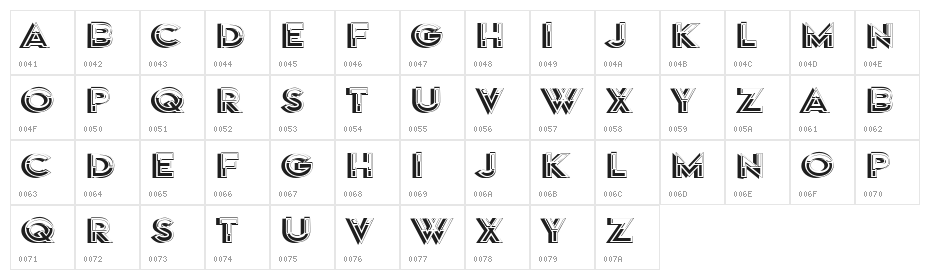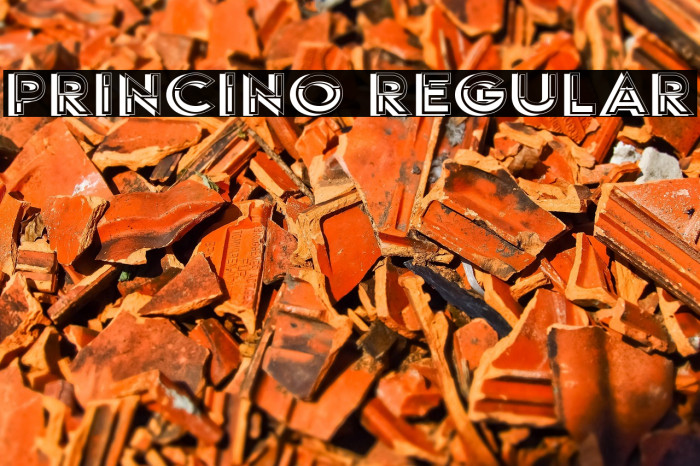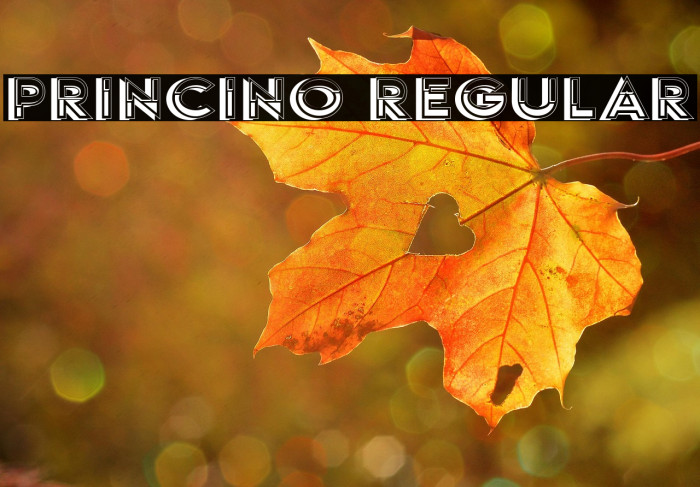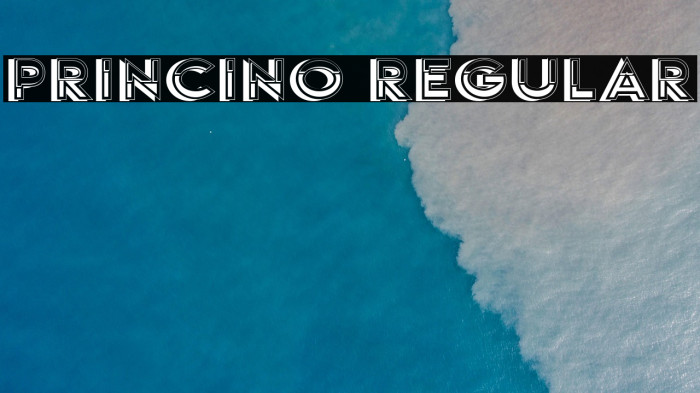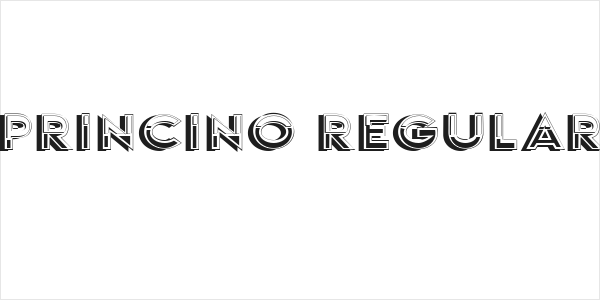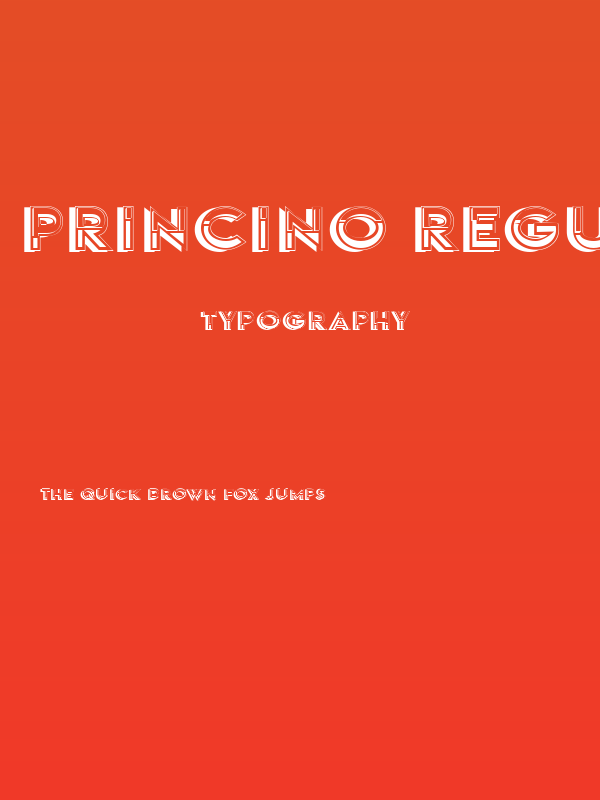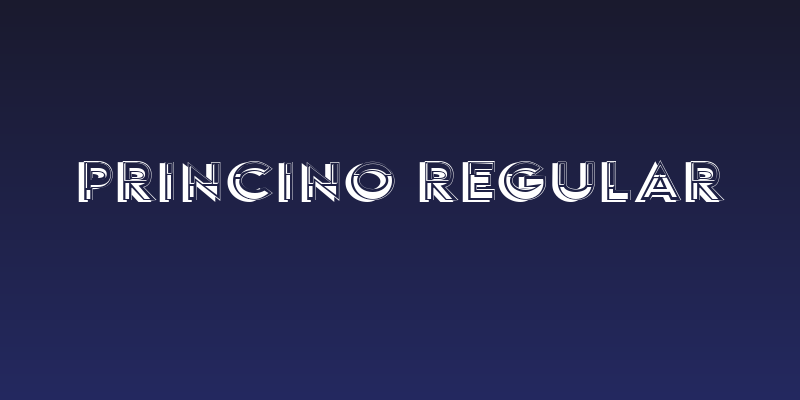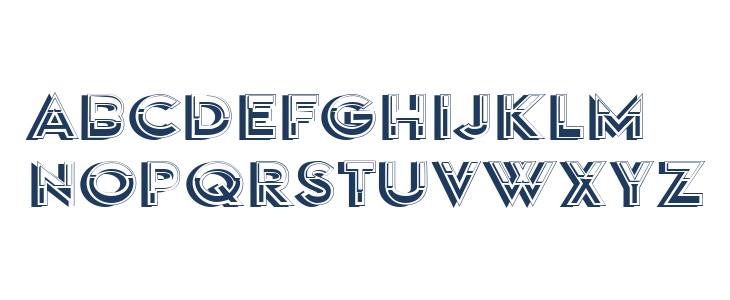
Princino Regular Font
Princino Regular Description
This font features a bold and striking design with a three-dimensional effect, achieved through the use of layered outlines and shadows. The uppercase letters are crafted with sharp, angular lines that give a sense of depth and movement. The style is reminiscent of vintage signage or art deco design, with a modern twist. The characters are evenly spaced, ensuring readability while maintaining a decorative flair. This font is ideal for making a statement in any design project, offering a unique blend of classic and contemporary aesthetics.
| Overall Style | Vintage |
| Proposed Projects | Ideal for branding, posters, headlines, and any project requiring a bold, eye-catching typeface. |